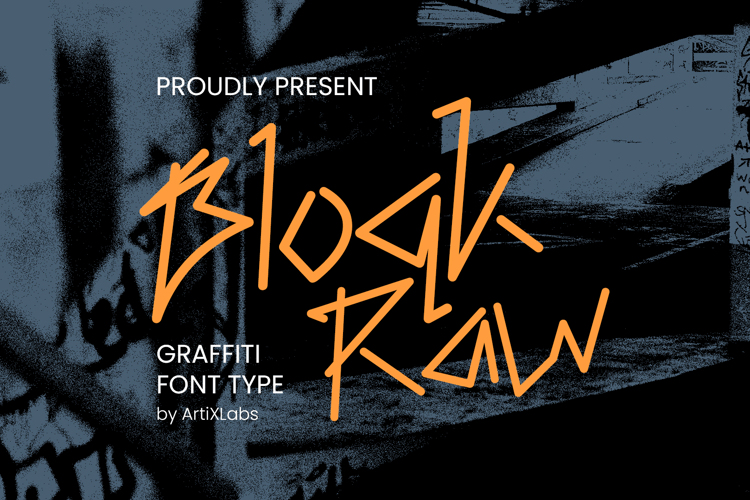
Bloqk Raw Font
BlockRaw is a raw urban graffiti font built with bold handstyle strokes and authentic street attitude. Inspired by underground tag culture, this display typeface is perfect for street fashion brands, hip-hop artwork, music posters, skate designs, and modern digital content.
If you need a graffiti font that feels expressive, energetic, and unapologetically urban — BlockRaw is the perfect choice.